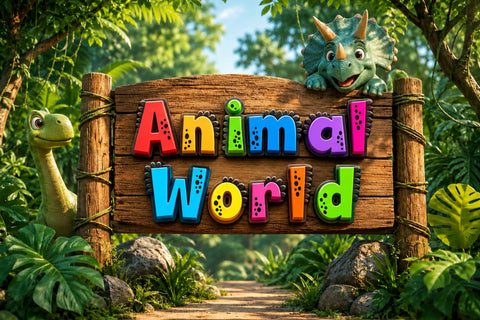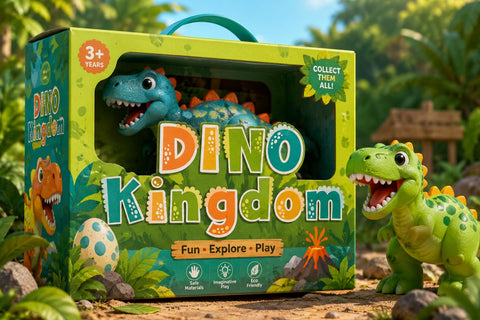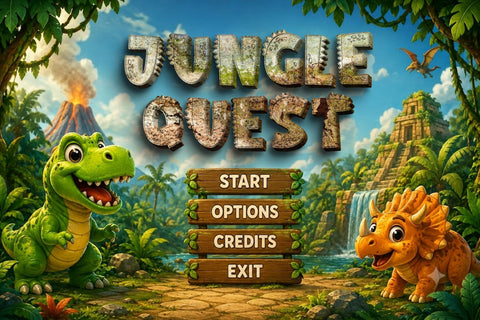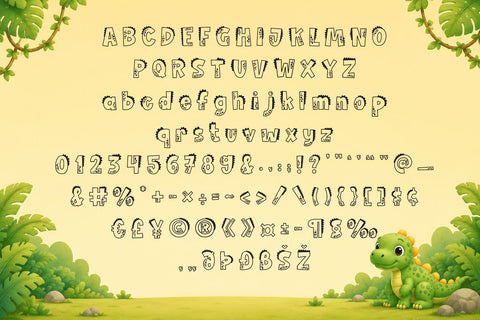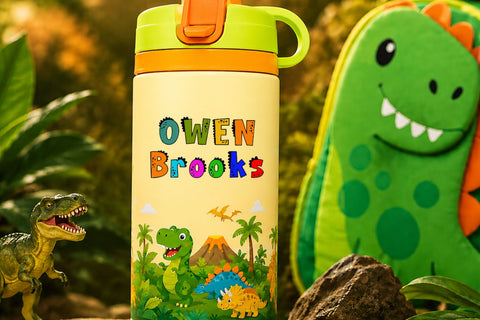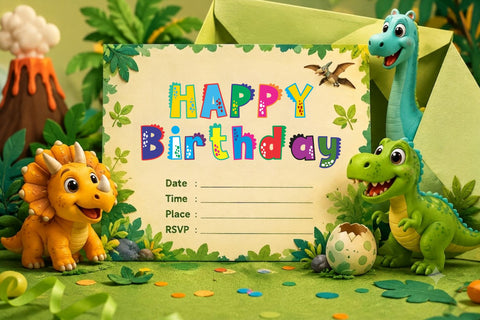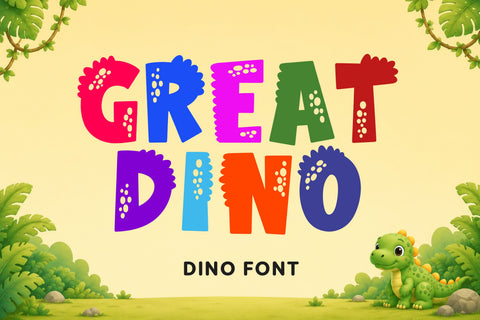
Great Dino – Dino Font
Great Dino – Cute Playful Display Font
Great Dino is a cute and playful display font inspired by the fun and adventurous world of dinosaurs. Designed with bold, rounded letterforms and a cheerful personality, this font brings excitement, imagination, and friendly charm to every creative project.
Featuring a fun and easy-to-read style, Great Dino captures the playful spirit of prehistoric adventures while maintaining excellent readability. Its bold shapes and whimsical details make it perfect for children’s designs, educational materials, themed events, and family-friendly branding.
Inspired by dinosaur parks, jungle adventures, museums, safari attractions, and playful cartoon characters, Great Dino creates typography that feels energetic, joyful, and memorable. Whether used for print or digital media, this font instantly adds a colorful and adventurous atmosphere.
Great Dino is ideal for children’s products, educational resources, event decorations, merchandise, branding, packaging, and promotional designs. Its friendly appearance makes it suitable for projects that need a fun, welcoming, and imaginative visual style.
Perfect For
- Children’s Magazine Headlines
- Kids Book Covers
- Story Books
- Educational Materials
- Preschool Designs
- Kindergarten Projects
- Zoo Park Signage
- National Park Signage
- Dinosaur Theme Parks
- Museum Exhibitions
- Safari Branding
- Children’s Toy Brands
- Toy Packaging
- Kids Fashion Branding
- Birthday Invitations
- Birthday Decorations
- Birthday Party Supplies
- Tumbler Designs
- Water Bottle Designs
- Stickers
- Labels
- Product Packaging
- Merchandise
- T-Shirt Designs
- School Projects
- Classroom Decorations
- Scrapbooking
- Cricut Projects
- SVG Crafts
- Social Media Graphics
- Posters
- Banners
- Logos
- Branding
- YouTube Thumbnails
- Event Promotions
- Gift Tags
- Greeting Cards
- And much more.
Why Choose Great Dino Font
- Cute and playful display style
- Funny dinosaur-inspired character
- Bold and highly readable letterforms
- Perfect for children’s branding
- Great for educational and entertainment projects
- Ideal for print and digital designs
- Friendly, colorful, and imaginative appearance
- Suitable for toys, parks, birthday themes, and adventure designs
Create Fun Dinosaur Adventures
Bring every design to life with Great Dino, a cute and playful display font that captures the joyful spirit of dinosaur adventures. Its bold shapes, friendly personality, and fun character make it a perfect choice for children’s magazines, zoo and national park signage, toy branding, birthday decorations, tumblers, educational materials, merchandise, and countless creative projects that inspire imagination and excitement.